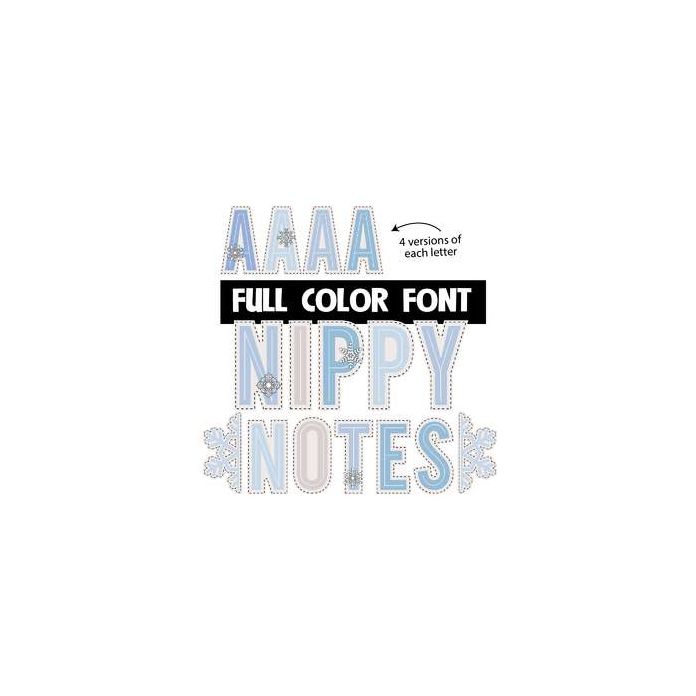
This full-color font features winter colored lettering with snowflakes throughout. Use the brackets for two decorative half-snowflakes. There is an upper and lowercase alt case you can access through your system's character map. This font works best for titles, displays, posters and more. Please note color fonts will show as black in non compatible programs. This font type is compatible with Silhouette Studio.